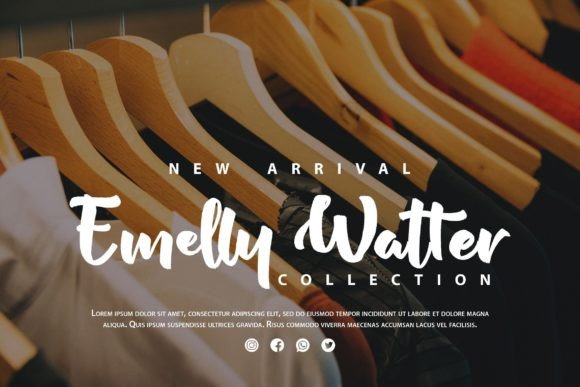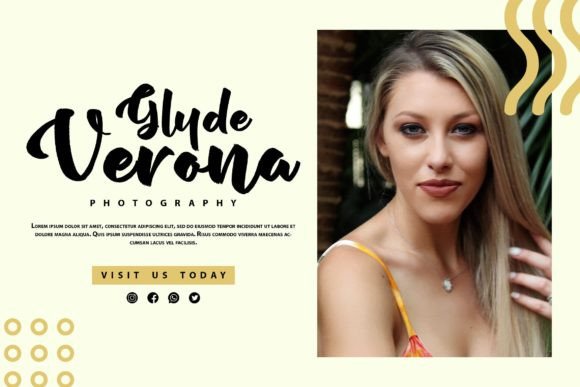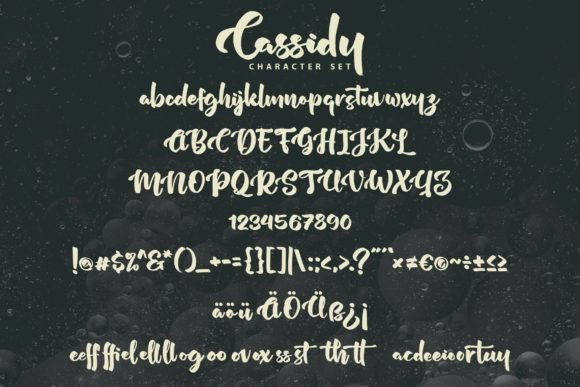
The Designer’s Delight: Cassidy Font
Have you ever been in the middle of a design project, and suddenly, you’re stuck on finding the perfect font? I recall a recent experience where I was working on a branding project for a local artisan, and I just couldn’t find a font that captured the essence of their handmade products. That’s when I stumbled upon the Cassidy font, and it was love at first sight! 💕
A Fresh and Natural Handwritten Brush Font
Cassidy is a fresh and natural handwritten brush font that has become an indispensable part of my design toolkit. Its incredibly versatile nature makes it a perfect fit for a wide range of designs, elevating them to new heights. Whether you’re a designer, crafter, or creative hobbyist, Cassidy is sure to bring your ideas to life! 🌟
What I Love About Cassidy
- ✨ Fresh and natural handwritten feel
- ✅ Incredibly versatile and adaptable
- 💡 PUA encoded for easy access to glyphs and ligatures
- 🎨 Perfect for a wide range of designs, from branding to crafting
While Cassidy is an amazing font, there are a few minor quirks to be aware of: 🤔
- ⚠️ Some users may find the font a bit too casual for formal designs
- ⚠️ Limited availability of certain characters or symbols
The Story Behind Cassidy
Cassidy was designed with the intention of creating a fresh and natural handwritten font that would bring a touch of warmth and personality to designs. Inspired by the beauty of hand-painted brushstrokes, Cassidy’s creator aimed to craft a font that would feel both elegant and approachable. 🌸
A: PUA (Private Use Area) encoding allows you to access a font’s glyphs and ligatures easily, making it simpler to create beautiful and unique designs. 📝
Q: Is Cassidy suitable for formal designs?
A: While Cassidy has a fresh and natural feel, it may be too casual for very formal designs. However, it’s perfect for creative and informal projects! 🎨